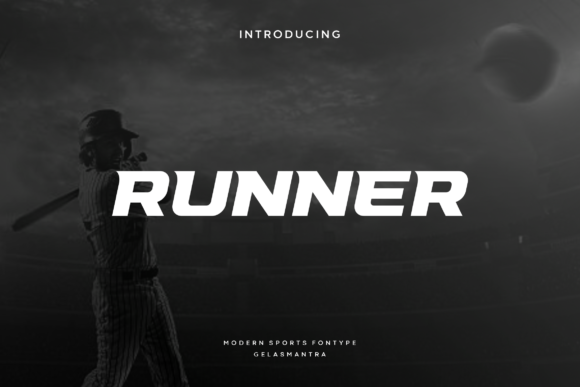
Introducing Runner Font: The Ultimate Choice for Sports and Racing Titles
Are you looking for a font that embodies speed, power, and dynamism? Look no further than the Runner Font, an awesome sports font designed to elevate your racing sports titles, running matches, cycling, automotive game logos, and monograms to the next level. With its wide italic fonts, modern cutouts, and dynamic slant, this font is sure to leave a lasting impression.
What Makes Runner Font Stand Out?
The Runner Font is designed to evoke the thrill of speed and competition. Its unique design combines legibility with a sense of dynamism, creating a font that not only looks great but also conveys a sense of power and velocity. Whether you’re designing a logo for a racing team, a sports brand, or an automotive company, this font is sure to deliver.
Key Features of Runner Font
- Wide Italic Fonts: The Runner Font features wide italic fonts that give your text a sense of movement and fluidity.
- Modern Cutouts: The font’s modern cutouts add a touch of sophistication and elegance, making it perfect for high-end sports brands.
- Dynamic Slant: The dynamic slant of the font creates a sense of energy and dynamism, perfect for capturing the spirit of speed and competition.
- Legibility: Despite its bold and dynamic design, the Runner Font remains highly legible, even at small sizes.
Use Cases for Runner Font
The Runner Font is incredibly versatile and can be used in a variety of contexts, including:
- Fast Car Racing Sports Titles: The font’s dynamic design makes it perfect for creating bold and eye-catching titles for racing games and sports events.
- Running Matches: The font’s wide italic fonts and modern cutouts make it ideal for creating logos and titles for running events and sports teams.
- Cycling: The font’s dynamic slant and bold design make it perfect for creating logos and titles for cycling teams and events.
- Automotive Game Logos: The font’s bold and dynamic design makes it ideal for creating logos for automotive games and racing teams.
- Monograms: The font’s unique design makes it perfect for creating modern and dynamic monograms.
Why Choose Runner Font?
So why choose the Runner Font over other fonts? Here are just a few reasons:
- Unique Design: The Runner Font features a unique design that sets it apart from other fonts.
- High Legibility: Despite its bold design, the font remains highly legible, even at small sizes.
- Versatility: The font can be used in a variety of contexts, from sports titles to automotive logos.
Tips for Getting the Most Out of Runner Font
Here are a few tips for getting the most out of the Runner Font:
- Use it Bold: Don’t be afraid to use the font bold and large to create maximum impact.
- Experiment with Colors: Experiment with different colors to find the one that works best for your design.
- Pair it with Other Fonts: Pair the Runner Font with other fonts to create a unique and dynamic design.
In conclusion, the Runner Font is an awesome sports font that’s perfect for creating bold and dynamic titles, logos, and monograms. With its wide italic fonts, modern cutouts, and dynamic slant, this font is sure to leave a lasting impression. Whether you’re designing a logo for a racing team, a sports brand, or an automotive company, this font is sure to deliver. So why wait? Download the Runner Font today and start creating your own dynamic designs.